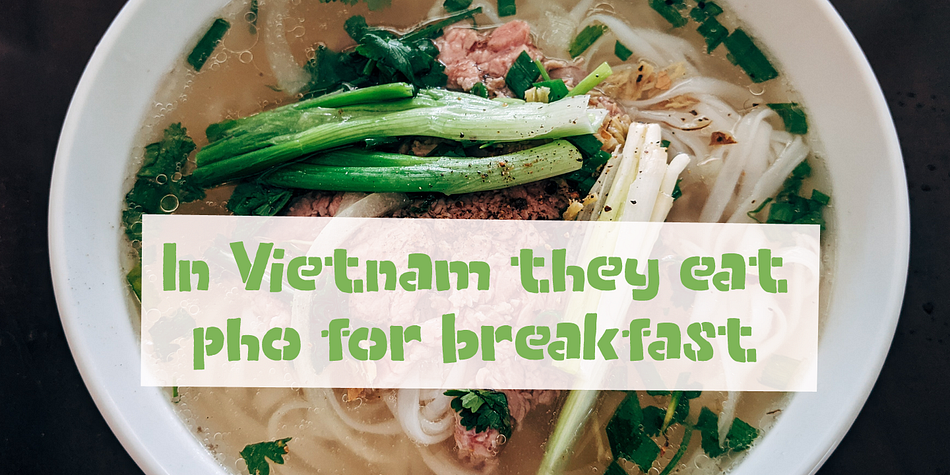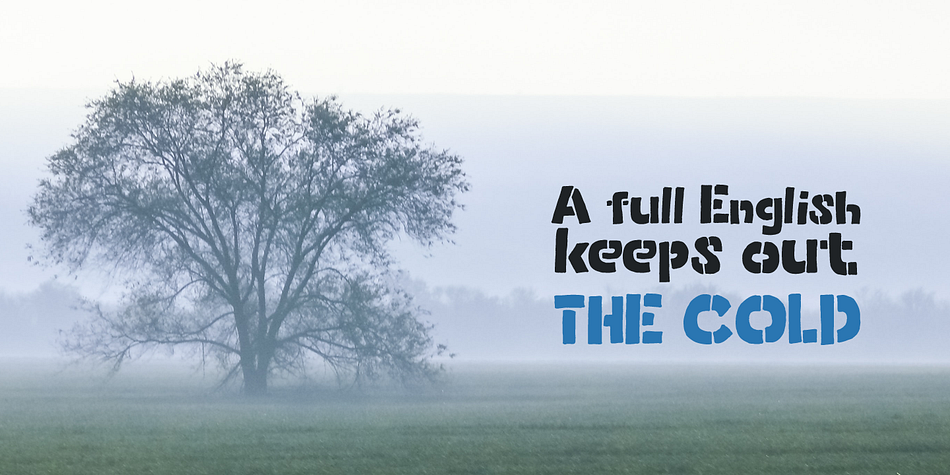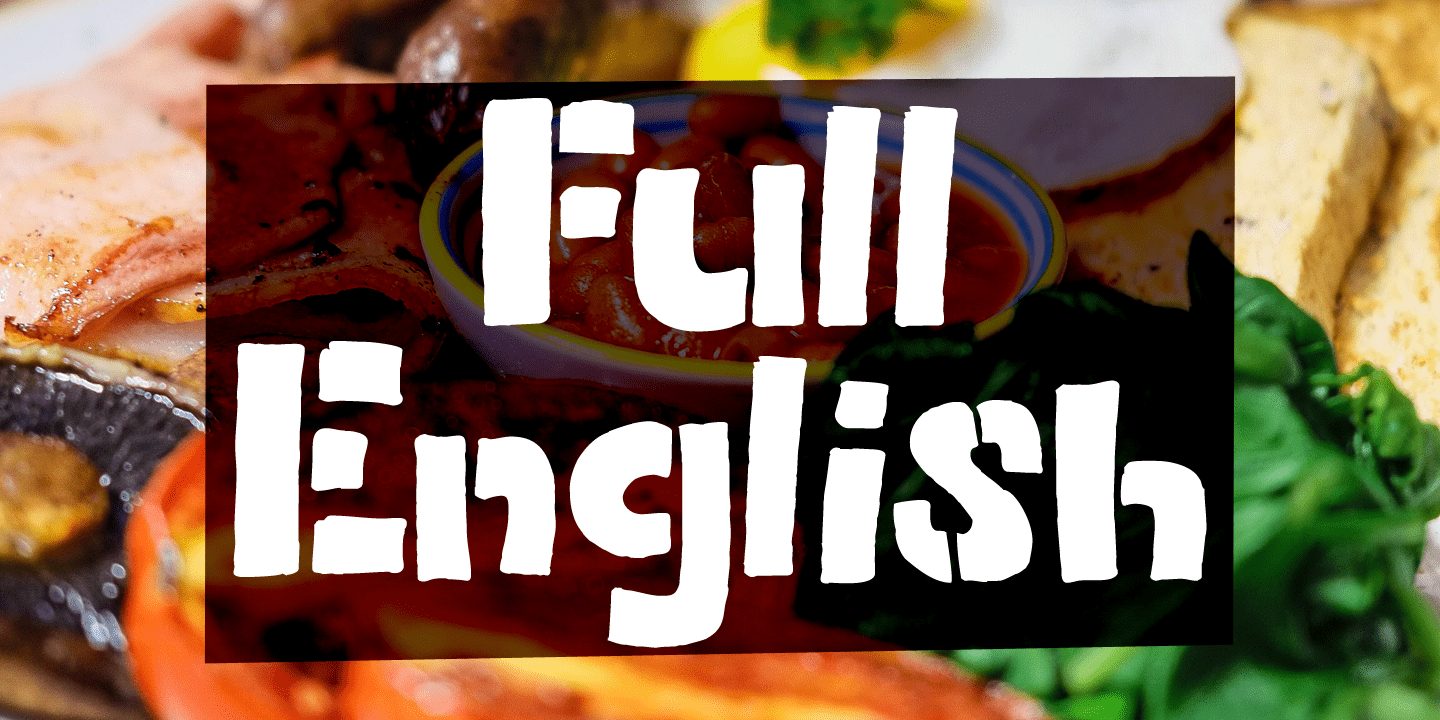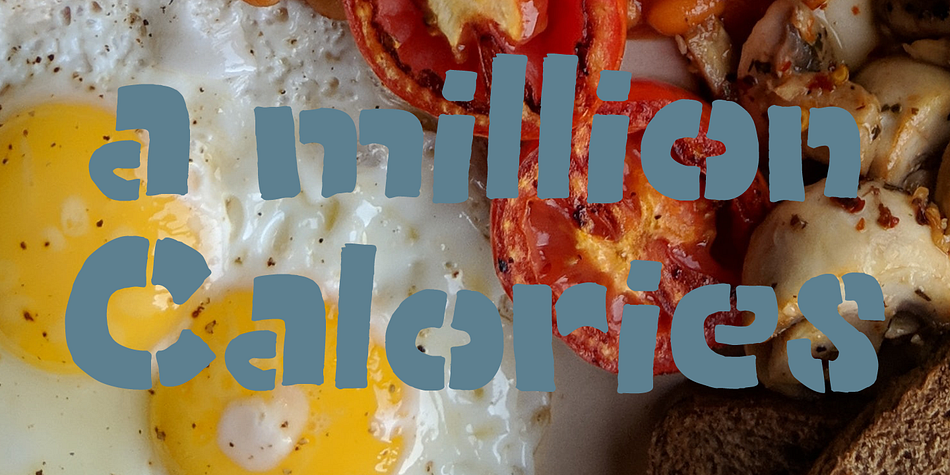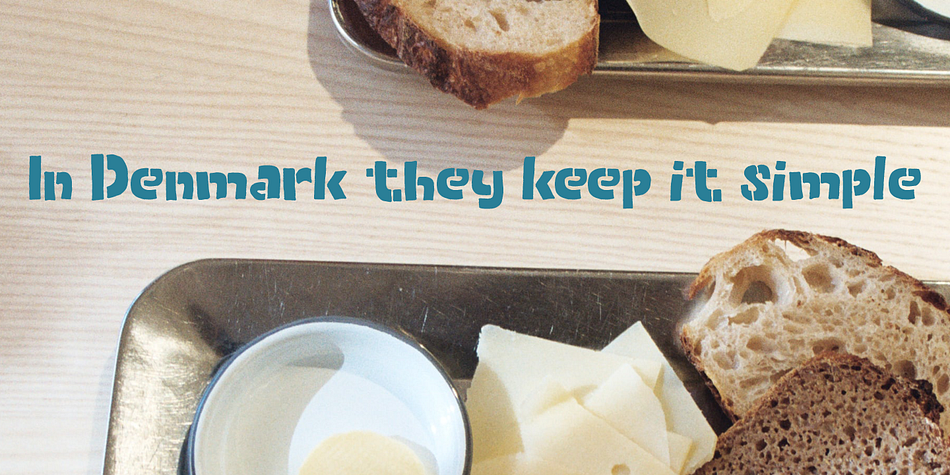
Designed by David Kerkhoff, Full English is a hand display and stencil font published by Hanoded.
I have always been fascinated by the ‘Full English Breakfast’. A Full English usually consists of toast, baked beans, sausages, fried eggs, fried tomatoes, fried mushrooms and sometimes blackpudding (a kind of sausage made from pig’s blood). When I lived in England, my friends were always quite happy to stow away a big full breakfast, but I, on the other hand, could not really set myself to eating one.
Full English is a hand made stencil font. If you own a pub and you serve breakfast, you could use it for your signs, but I guess this font looks good on anything that needs a bit of attention. For attention, it will get!